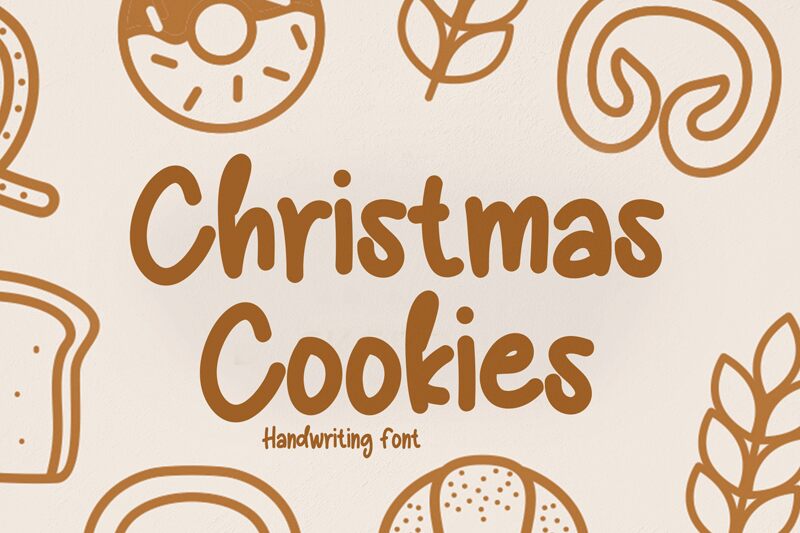
Christmas Cookies
Christmas Cookies is the perfect semi-light, cute handwritten font for all your festive projects. Designed by scratchones, this delightful typeface captures the essence of the holiday season with its playful and whimsical style. Whether you're designing greeting cards, party invitations, or seasonal menus, Christmas Cookies will add a touch of charm to your creations. Its semi-light weight makes it ideal for titles and headers, while its adorable design lends itself well to body text as well. Get creative with Christmas Cookies and spread some holiday cheer!
the latest style letters are perfect for wall displays, wedding invitations, social media post logos, advertisements, product packaging, product designs, labels, photography, watermarks, invitations, stationery, and any project that requires taste handwriting.